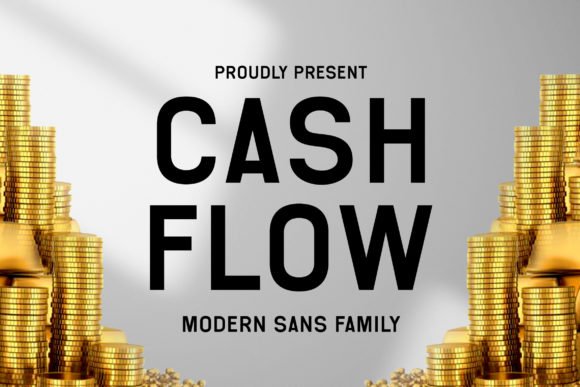
The Perfect Font to Elevate Your Creations
There’s nothing quite like the thrill of staring at a blank canvas, waiting for inspiration to strike. The cursor blinks, and your mind begins to wander – what will this project become? As designers, we’re always on the lookout for that special something that brings our ideas to life. And that’s where the Cashflow Font comes in – a thick, bold, and cool display font that’s sure to elevate any creation.
With its unique character, Cashflow Font is the perfect addition to any designer’s library. Whether you’re working on a marketing campaign, a logo, or a graphic novel, this font has the potential to take your project to the next level. Its versatility makes it an invaluable asset for designers who want to add a touch of sophistication and style to their work.
Cashflow Font Key Features
- Font Family: Cashflow Font is a sans-serif font family designed for readability and clarity, ideal for financial and business applications.
- Font Sizes: Available in 5 weights (Thin, Light, Regular, Medium, Bold) and 3 styles (Italic, Oblique, Regular), allowing for a range of design options.
- Resolution: Optimized for high-resolution displays, with precise hinting and advanced typography features for crisp and clear rendering.
- Unique Characteristics: The Cashflow Font features a clean and modern design, with a focus on legibility and readability, making it an ideal choice for financial reports, business documents, and presentations.
- Scalability: Designed to be highly scalable, the Cashflow Font looks great in both small and large sizes, ensuring consistent readability across various applications.
Cashflow Font Review
Overall, I think the Cashflow Font is a solid addition to any designer’s toolkit, but it’s not without its flaws. Here’s what I think works well:
- ✨ The font’s modern, sleek aesthetic is perfect for creating a professional and sophisticated look in financial, business, or tech-related designs.
- ✨ The font is highly legible, even at smaller font sizes, making it a great choice for documents, reports, and presentations.
- ✨ The font supports a wide range of languages, making it a great option for global brands and companies.
However, I do have a few concerns:
- ⚠️ The font’s expressiveness is somewhat limited, making it less suitable for designs that require a lot of personality or flair.
- ⚠️ The font’s uppercase letters can be a bit too blocky, which may not be ideal for designs that require a more elegant or refined look.
- ⚠️ The font is not particularly versatile, making it less suitable for designs that require a lot of flexibility or experimentation.
Overall, I would give the Cashflow Font 3.5 out of 5 stars. While it’s a solid choice for certain types of designs, it may not be the best option for more creative or experimental projects.
– Use it for headings and titles to add a touch of elegance.
– Combine it with other fonts to create a unique look.
– Experiment with different font sizes and styles to create visual interest.
Cashflow Font is commonly used in financial documents, presentations, and reports. It’s also suitable for use in marketing materials, such as brochures and flyers.